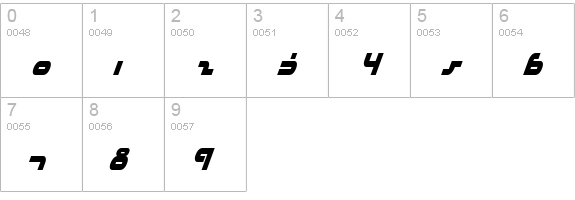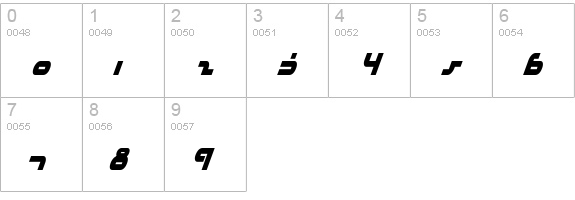
uni-sol condensed italic Font Details
uni-sol condensed italic is a distinctive, condensed-width, italic variant in the uni typeface family \xE2\x80\x94 well suited to design and typography projects.
Uni-Sol Condensed Italic font is a sleek and modern typeface that exudes elegance and sophistication. Its condensed style makes it perfect for creating a stylish and professional look in any design project. The italicized version adds a touch of flair and personality to your text. This versatile font is ideal for use in branding, advertising, editorial design, and more. Whether you are designing a website, a brochure, or a logo, Uni-Sol Condensed Italic font will help you stand out from the crowd with its unique and eye-catching appearance. The best part? Uni-Sol Condensed Italic font is available for free download at FontsMarket.com. So you can add this stunning typeface to your collection without breaking the bank. Don't miss out on this opportunity to enhance your designs with the beauty and elegance of Uni-Sol Condensed Italic font.